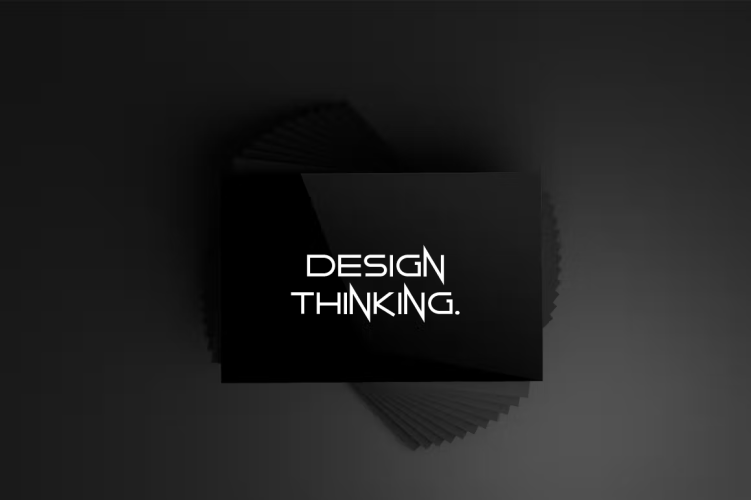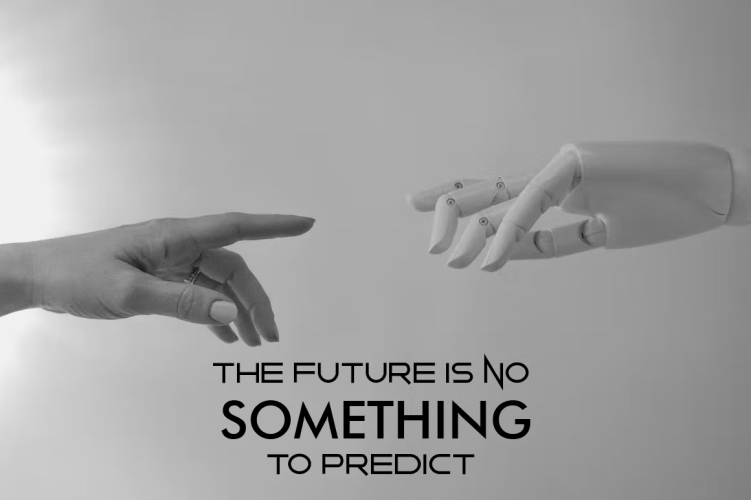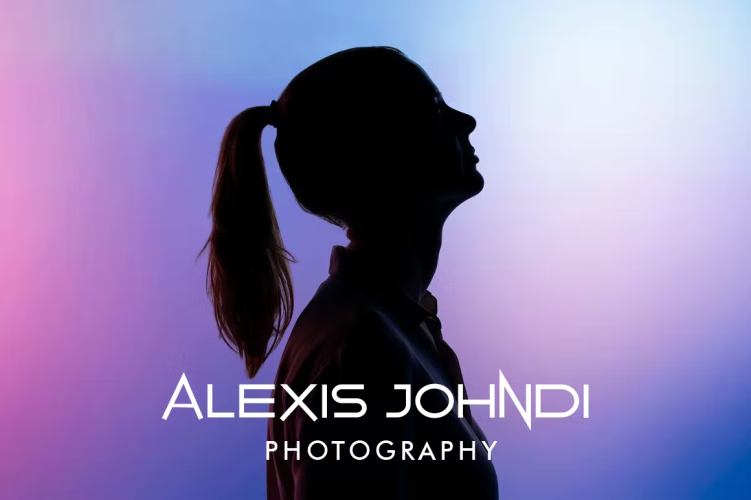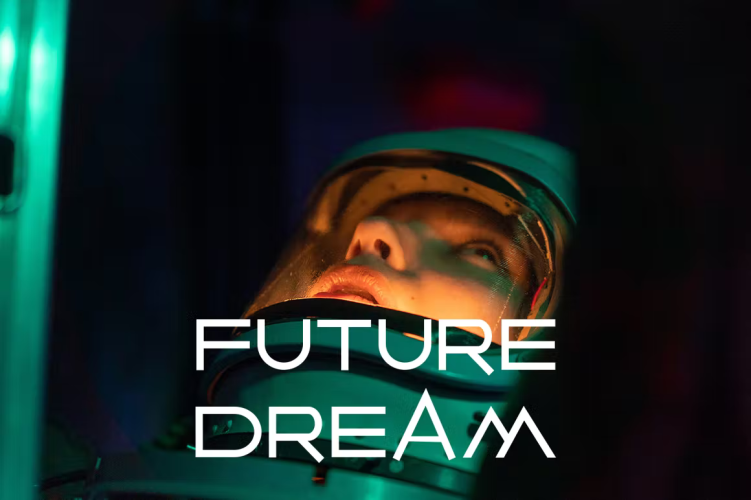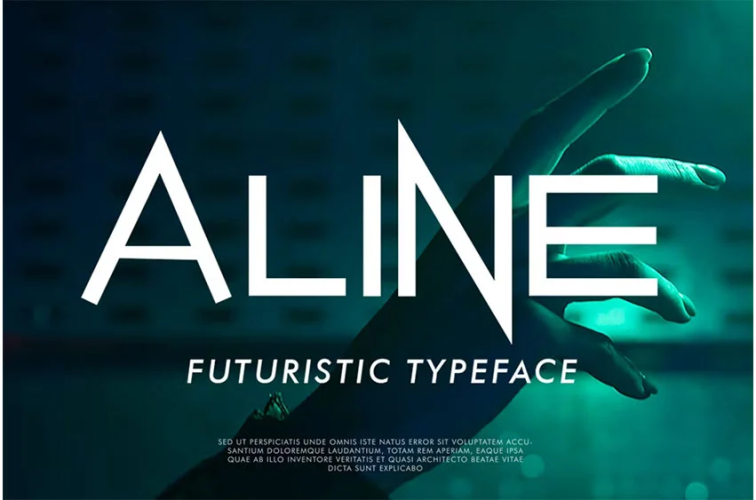
Aline Font
Aline Font is a sans based font with unique uppercase that will make your design looks futuristic and modern. You can use this font for any purpose, especially to make logotype.
Where Aline Font works best
Aline Font keeps its shape at 14 and 16 pixels, which is where interface text actually lives. Numbers and capitals stay distinguishable in tables.
Presentations are read at a distance; a clean sans with a strong bold is the safest hierarchy you can build in a hurry.
Simple letterforms survive angles, glare and movement, so Aline Font suits door signs, menus boards and exhibition panels.
What kind of work does Aline Font suit?
It sits in the Sans Serif Fonts group and reads as modern, professional, sans serif, sans serif fonts. That makes it a candidate wherever those qualities help: headings, packaging, social graphics and brand work. Set it at the size you plan to use before deciding.